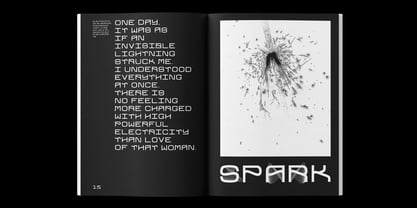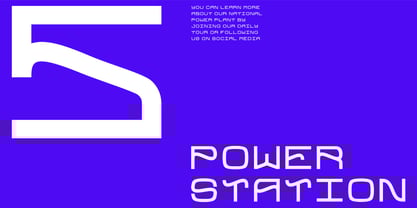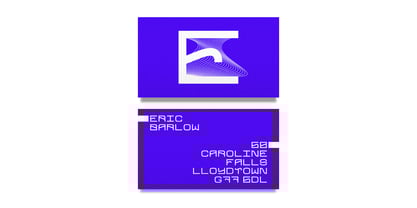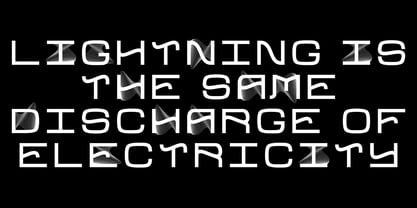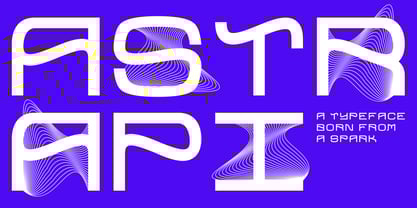
Astrapi
by Eleftheria Fonts
The Astrapi Font Family was designed by Athena Eleftheridi and published by Eleftheria Fonts. Astrapi contains 1 styles. More about this family
A new typeface was born from a spark.
Astrapi (Αστραπή) is translated from Greek as lightning. Indeed, designed to reflect the power of electricity, the plasticity of the letters creates a feeling of fluidity, continuity and strength.
In addition to the main style, almost every letter and number in Astrapi has a stylistic alternative. And the elements inside these glyphs resemble the movement of electromagnetic waves.
Astrapi is designed for headlines, quotes, posters, logotypes, etc. Powerful and smooth, it helps you set the right mood for your project.